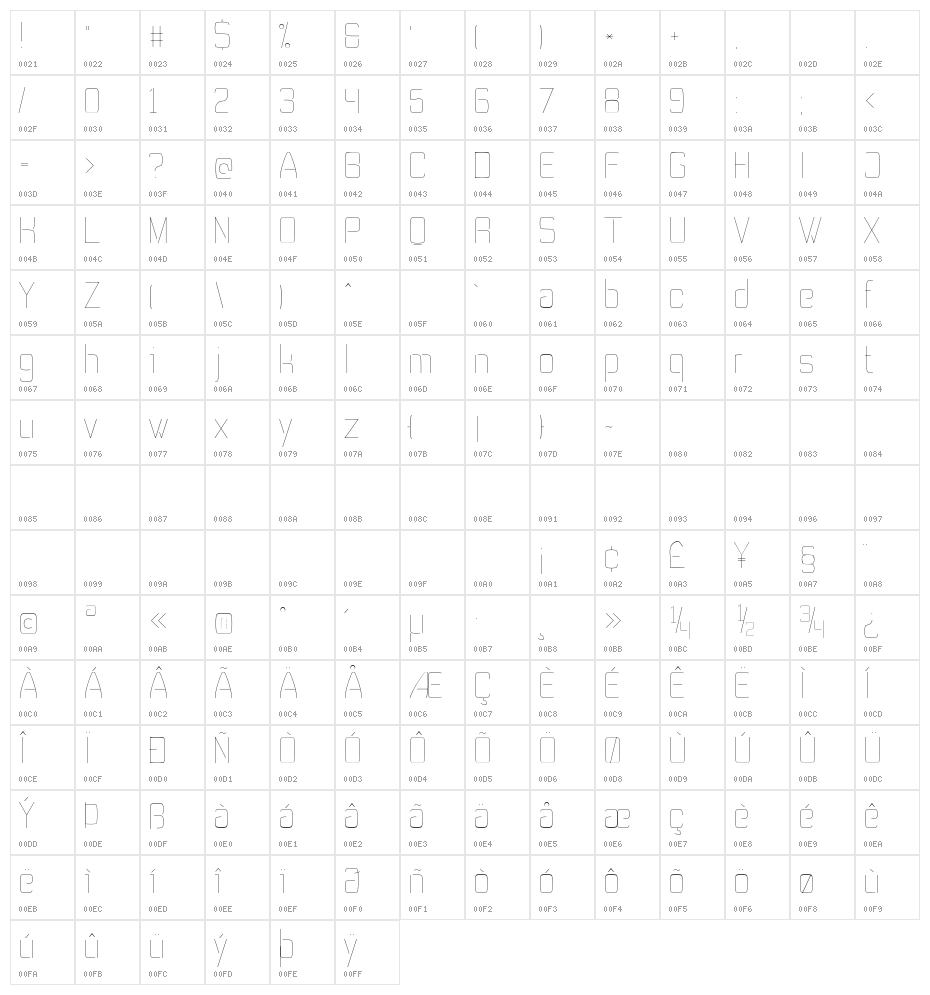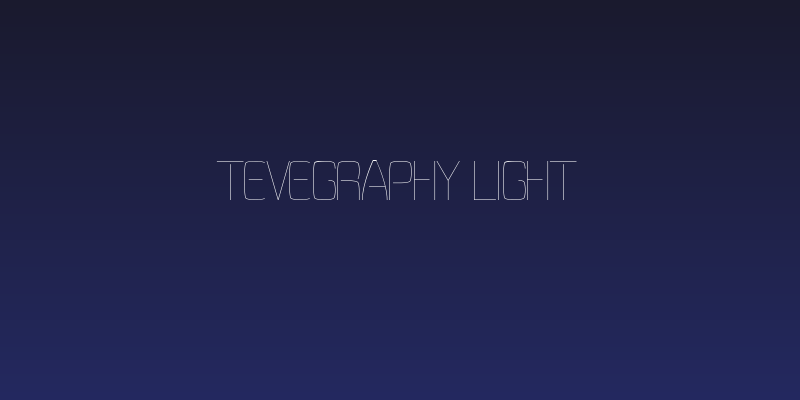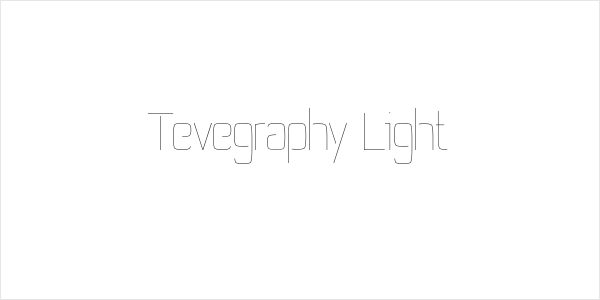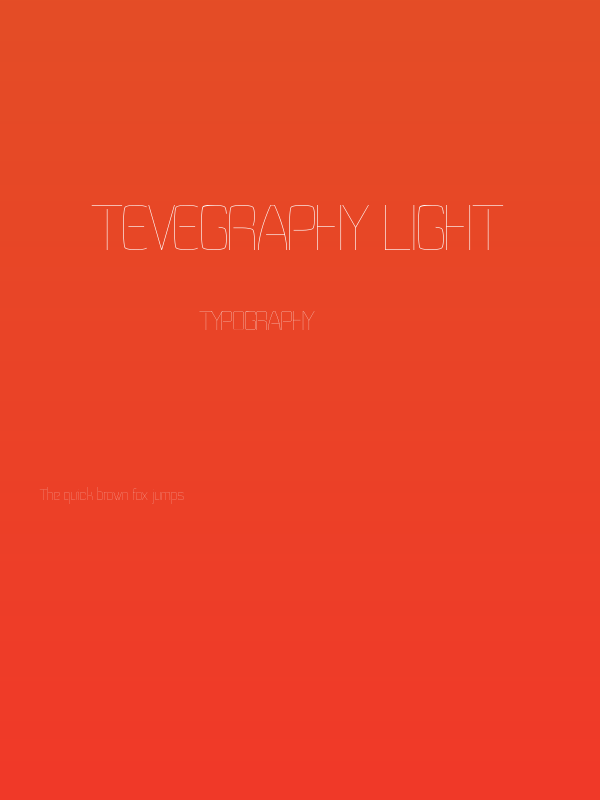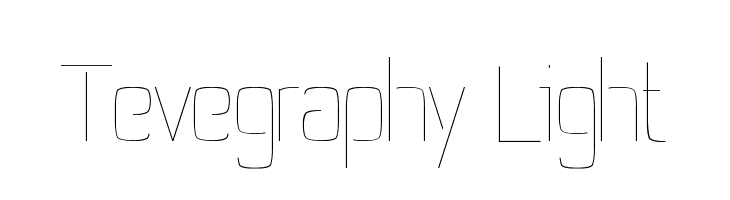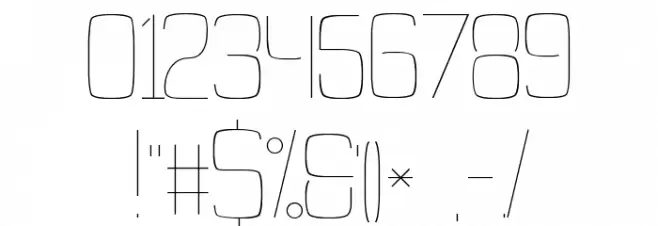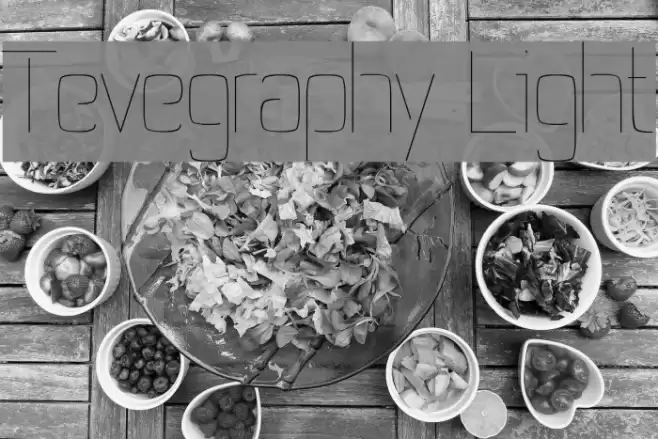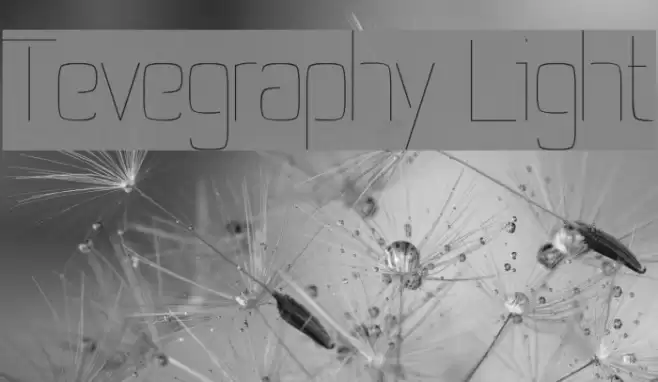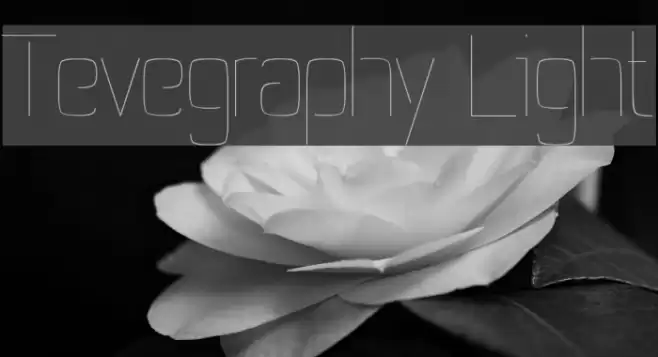
Tevegraphy Light Font
Tevegraphy Light Description
This font features a sleek and modern design with thin, elongated letterforms that convey a sense of elegance and minimalism. The characters are constructed with clean, straight lines and subtle curves, creating a harmonious balance between geometric precision and organic flow. The uppercase and lowercase letters maintain a consistent style, with a slightly condensed appearance that enhances readability. The numerals and special characters are designed to complement the alphabet, ensuring a cohesive look across all text elements. This font's light weight and airy feel make it ideal for projects that require a sophisticated and contemporary aesthetic.
| Categories | Modern |
| Width | Condensed |
| Use Case | Headlines, Logos, Digital interfaces |
| Proposed Projects | Ideal for modern branding, editorial design, minimalist posters, and digital interfaces. |